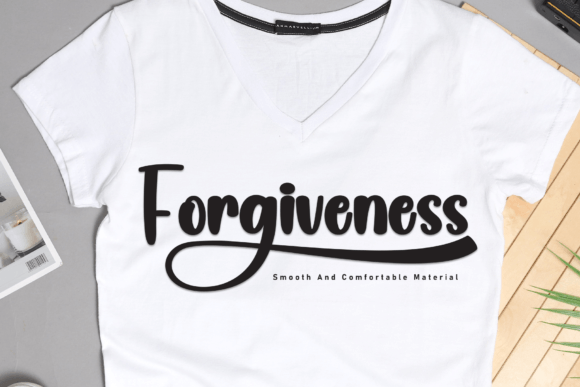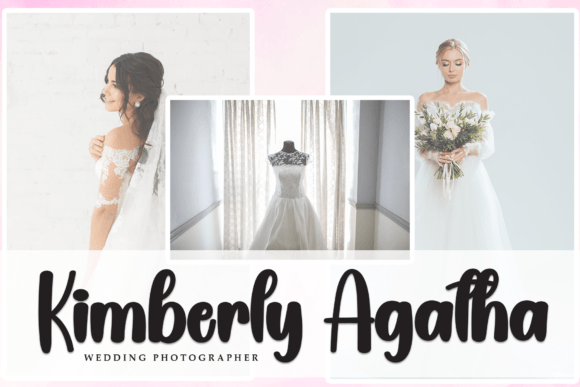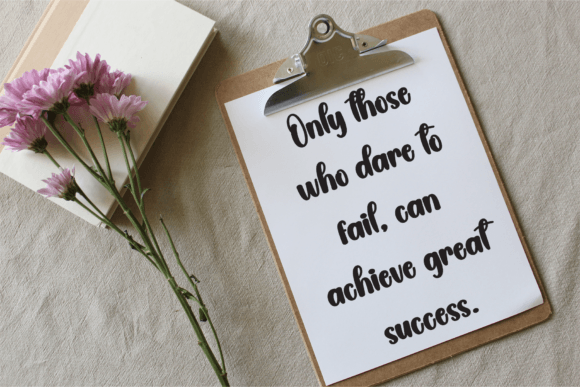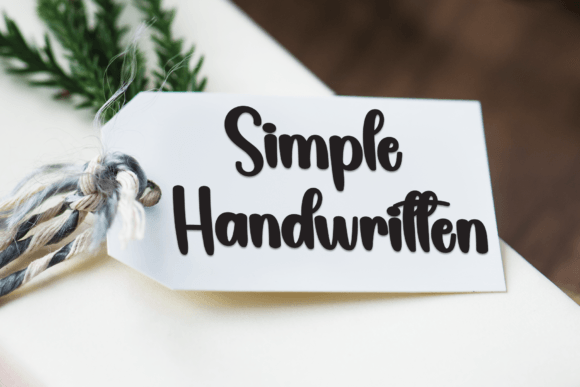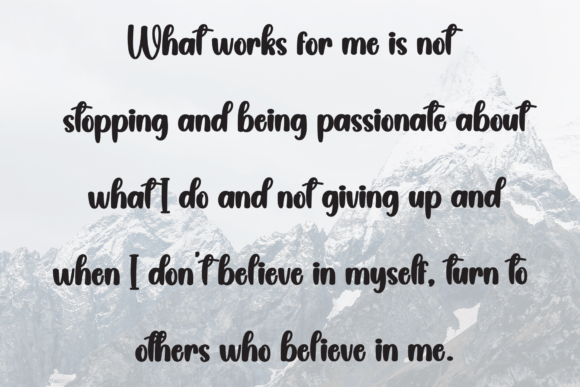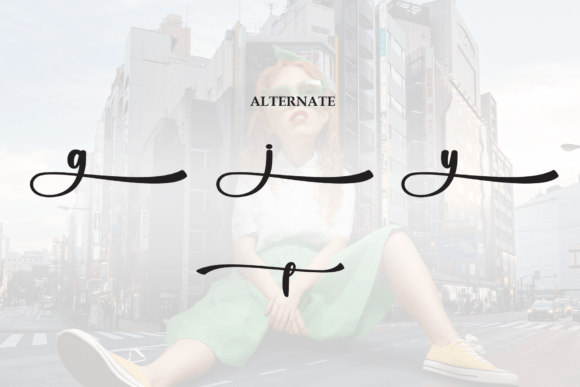
Gargantuan Font: Elevate Your Designs with a Timeless Handwritten Style
In the world of typography, a good font can make all the difference in creating visually stunning designs. For designers and crafters looking for a unique and beautiful touch, Gargantuan Font is an excellent choice. This lovely and timeless handwritten font is perfect for creating eye-catching logos, branding, and quotes that will leave a lasting impression.
The Unique Charm of Gargantuan Font
What sets Gargantuan Font apart is its distinctive and elegant handwritten style. Every letter has a unique and beautiful touch, which will make your design come alive. The font’s timeless quality ensures that it will remain relevant and stylish for years to come, making it a great investment for designers and crafters.
Gargantuan Font is incredibly versatile and can be used for a wide range of design projects. Its elegant and sophisticated style makes it perfect for:
- Creating eye-catching logos that will help your brand stand out
- Developing a consistent brand identity that exudes elegance and sophistication
- Designing inspiring quotes that will leave a lasting impression on your audience
Why Choose Gargantuan Font?
With so many fonts available, why choose Gargantuan Font? Here are just a few reasons:
- Unique and Beautiful Touch: Every letter has a distinctive and elegant style that will add a touch of sophistication to your designs.
- Timeless Quality: Gargantuan Font has a timeless quality that ensures it will remain stylish and relevant for years to come.
- Versatility: This font can be used for a wide range of design projects, from logos and branding to quotes and more.
- Ease of Use: Gargantuan Font is easy to use and can be easily integrated into your design workflow.
Tips for Using Gargantuan Font
To get the most out of Gargantuan Font, here are a few tips:
- Experiment with Different Sizes: Gargantuan Font looks great in a variety of sizes, from large and bold to small and delicate.
- Pair with Other Fonts: Try pairing Gargantuan Font with other fonts to create a unique and visually interesting design.
- Use for Headlines and Titles: Gargantuan Font is perfect for headlines and titles, where its elegant and sophisticated style can really shine.
In conclusion, Gargantuan Font is a timeless and elegant handwritten font that is perfect for designers and crafters looking to elevate their designs. With its unique and beautiful touch, versatility, and ease of use, Gargantuan Font is an excellent choice for creating eye-catching logos, branding, and quotes. Whether you’re looking to create a stunning logo, develop a consistent brand identity, or design inspiring quotes, Gargantuan Font is the perfect choice.